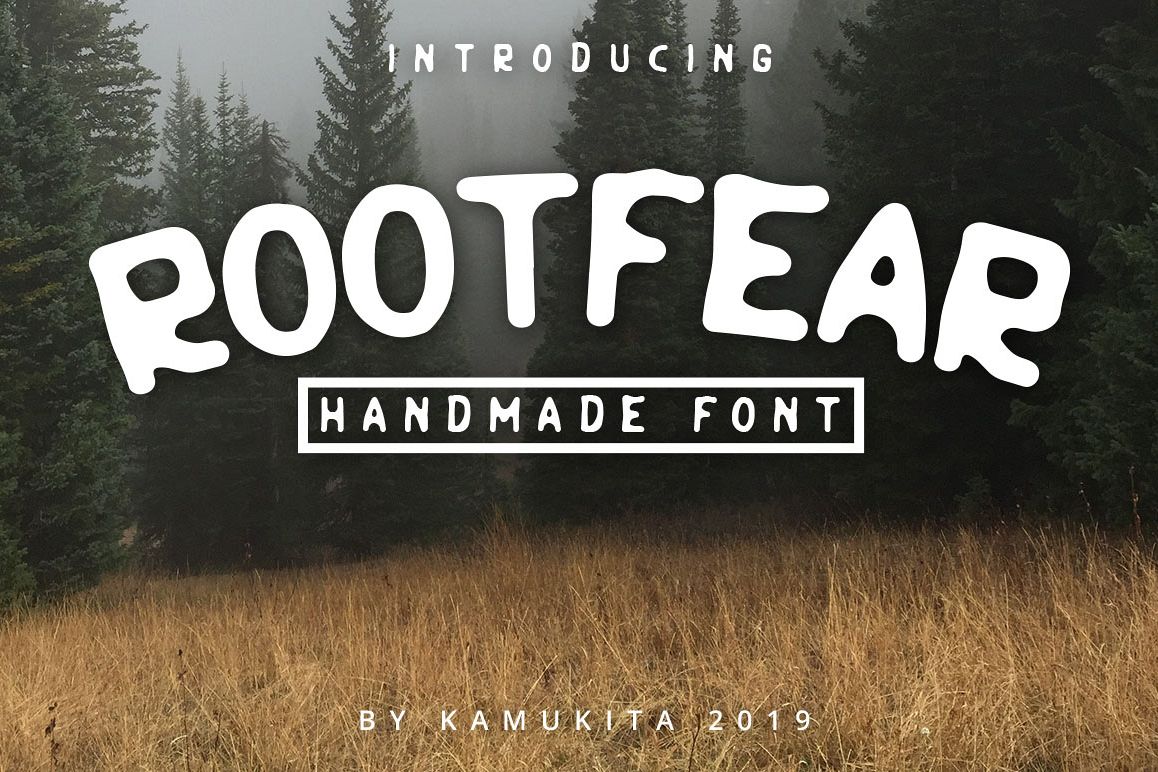
Rootfear Handmade Font
Introducing, Rootfear is amazing handmade font that will make your designs stand out!
Rootfear is perfect for branding projects, logo, book cover design, tshirt designs, social media posts, advertisements, product packaging, product designs, label, watermark, invitation, stationery and any projects.